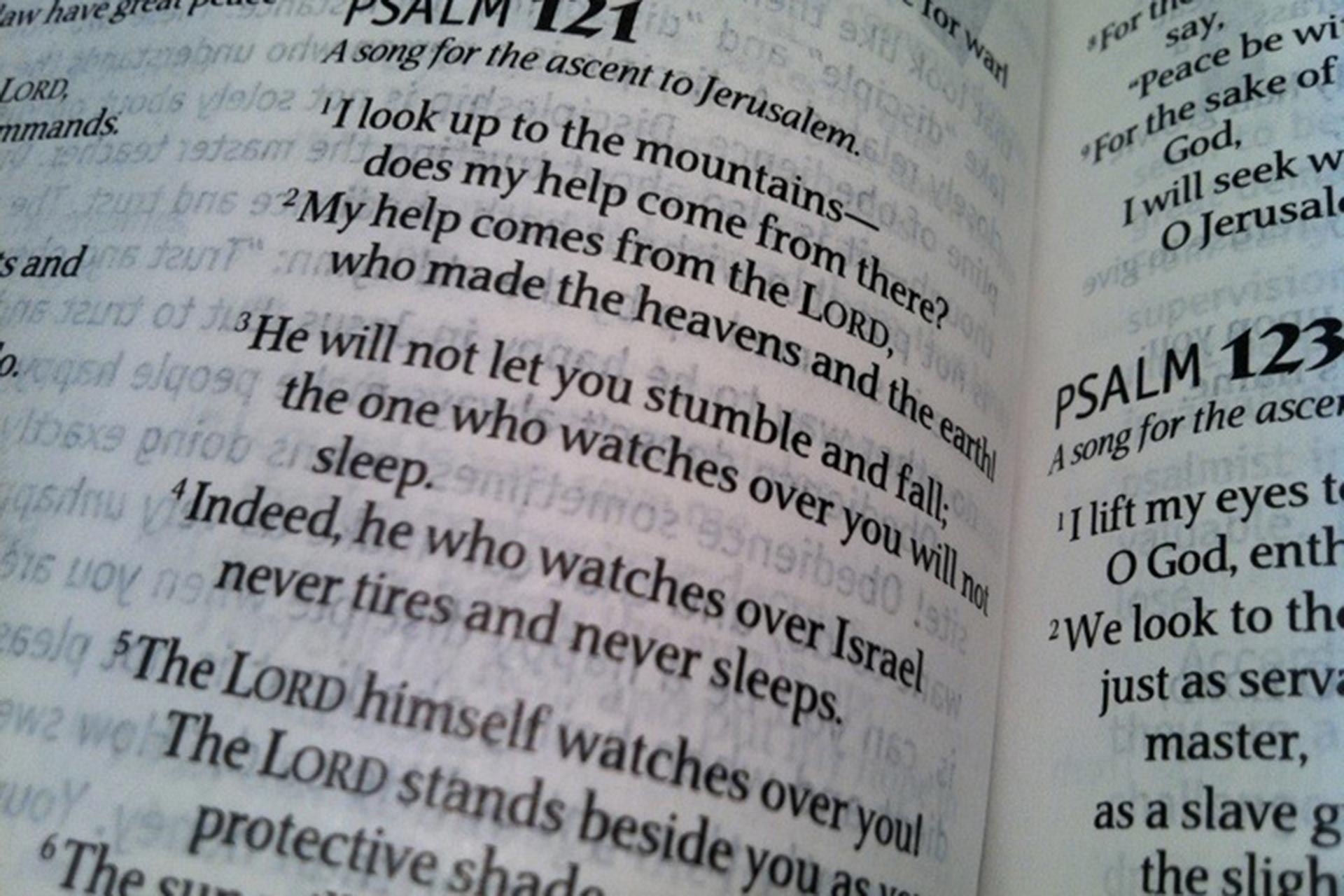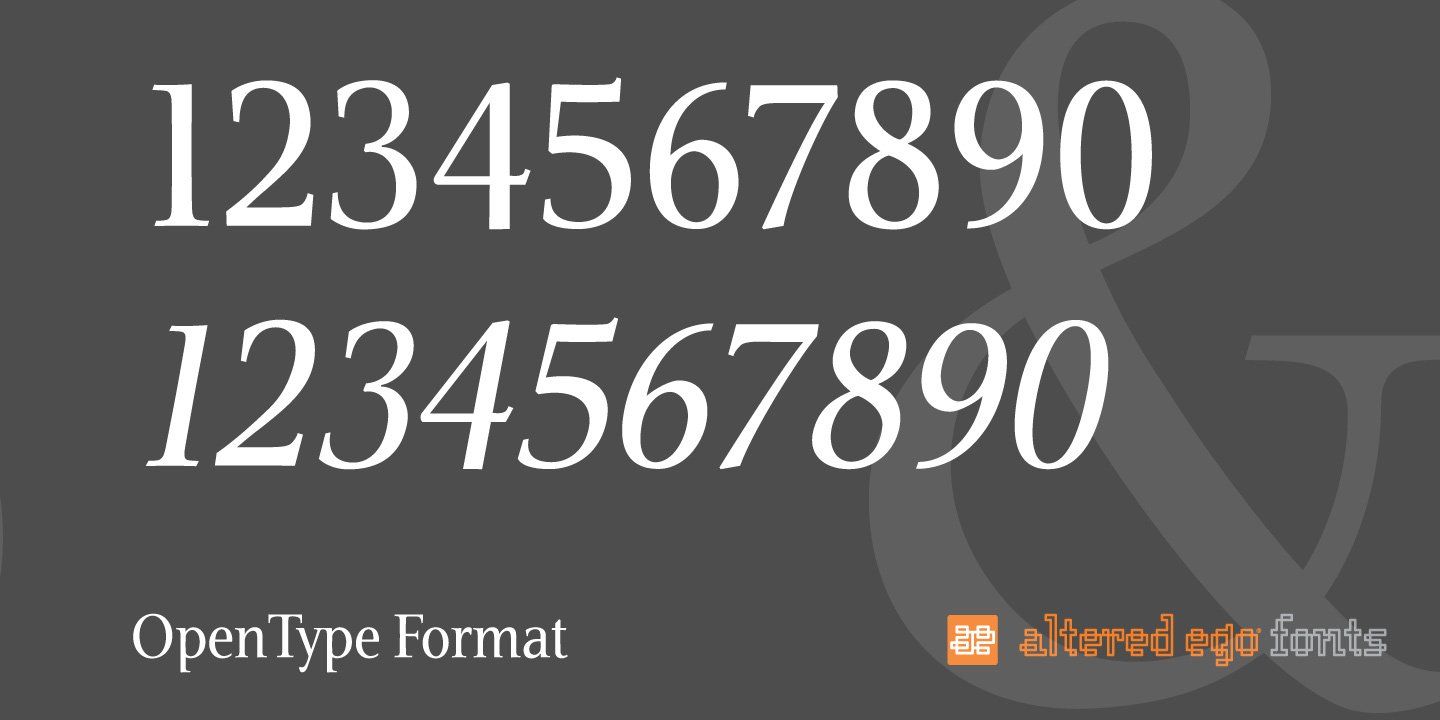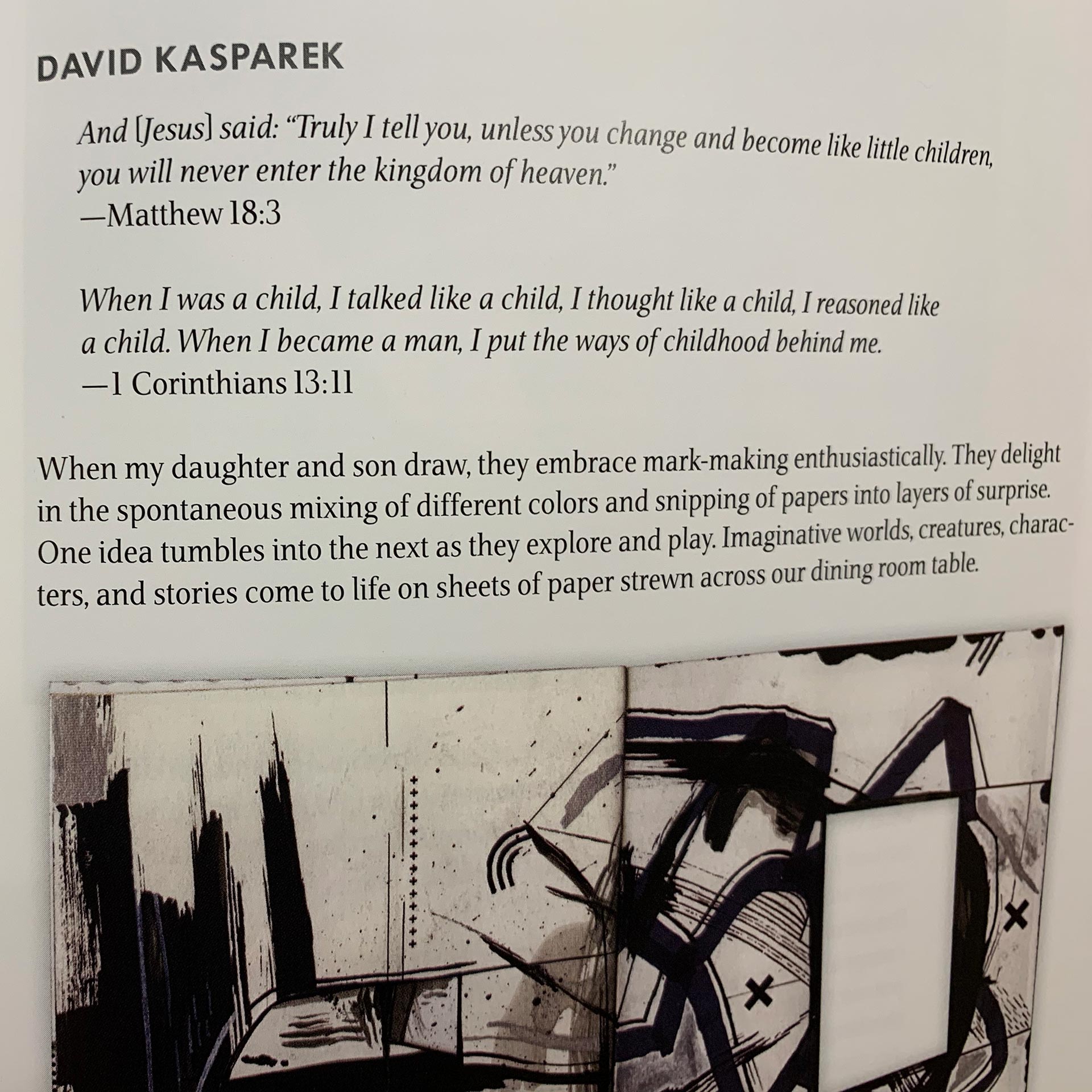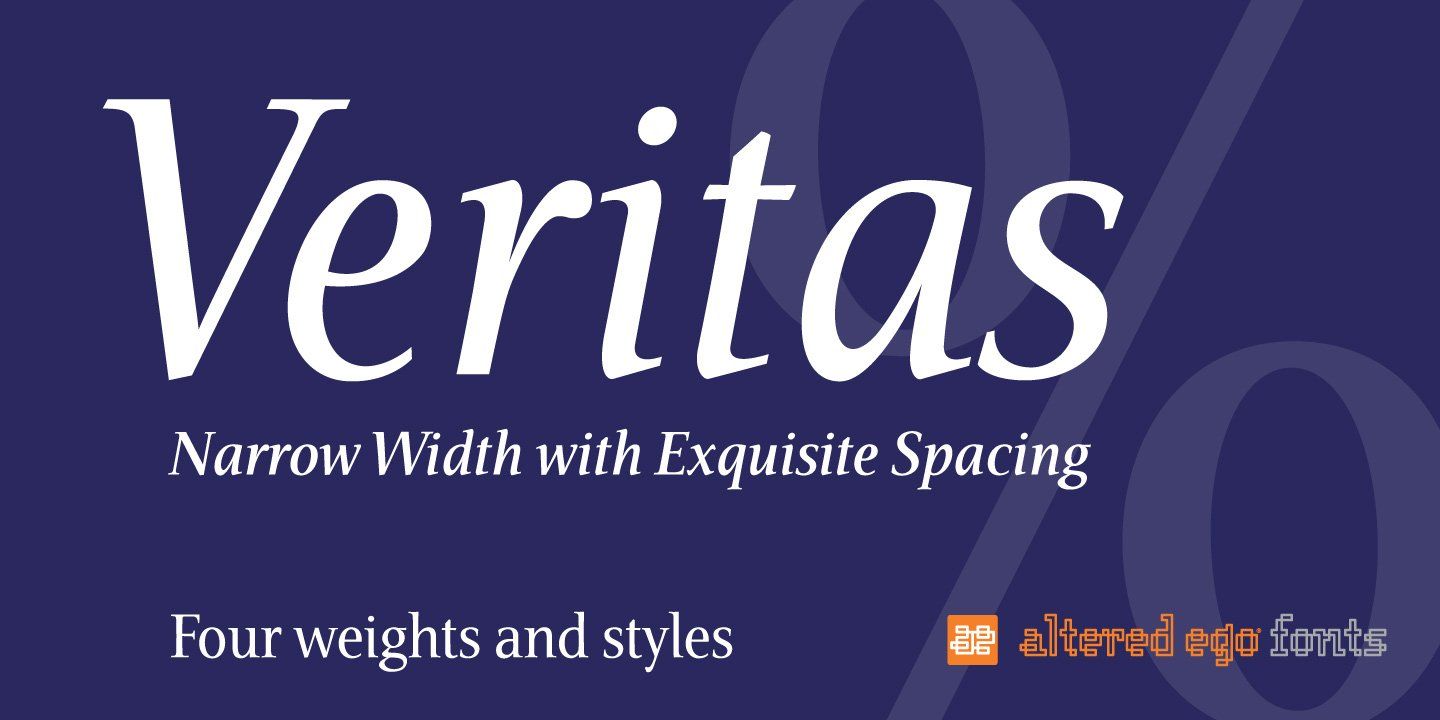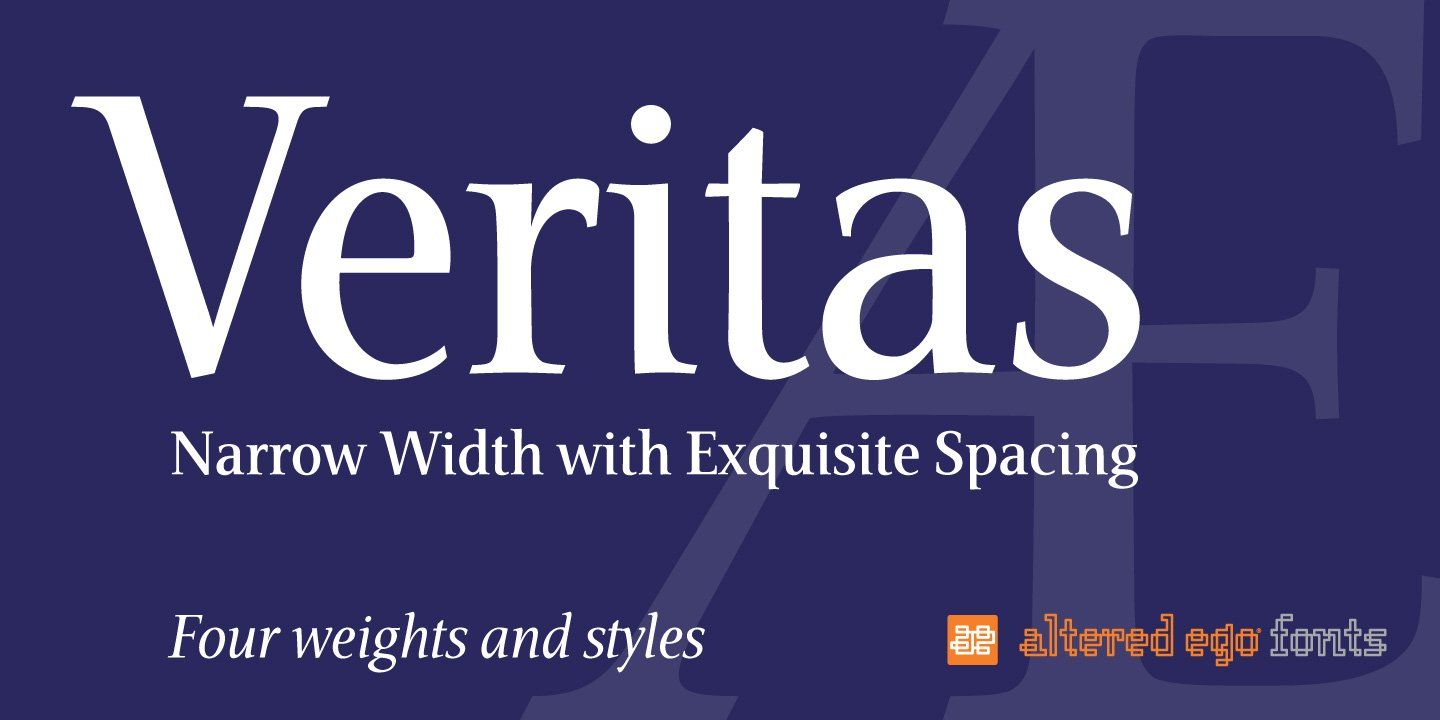
Altered Ego Veritas
Narrow width publication, newspaper, webfont, and Bible font
Veritas™ AE is a best-selling narrow width text typeface family. It’s the answer to, “too much copy, not enough space.”
Veritas is a four-weight narrow-width text typeface family with a tall x-height that compares with Times Roman for legibility and character count.
Make every book and publication more readable
Veritas AE features exquisite spacing, incredible economy of space and enhanced readability. As OpenType, it is beautifully kerned down to the number set to give your readers flawless legibility in text settings.
Veritas is designed for text situations where space is at a premium, columns are narrow, and where readability and larger point sizes are necessary. That means is you can fit more text in less space!
Who uses the Altered Ego Veritas font?
Altered Ego Veritas font is a top choice for publishers like Tyndale Publishing , Square Halo Books , Crossway Publishing, Liddell Press , Christians in the Visual Arts (CIVA ), and more. Veritas AE makes publications and Bibles easier to read, and corporate identity programs distinctive.